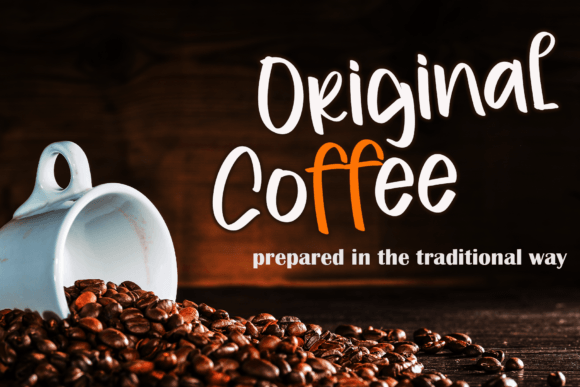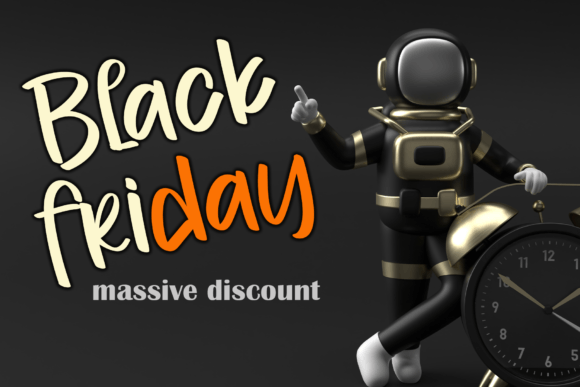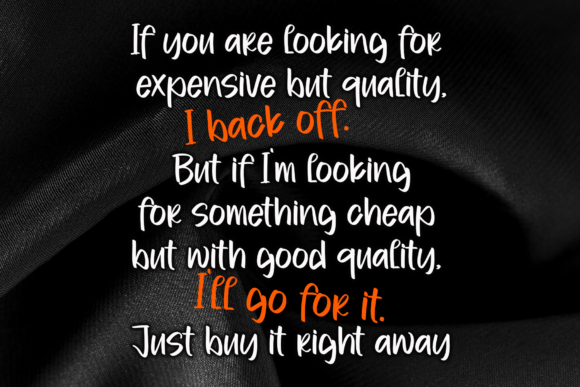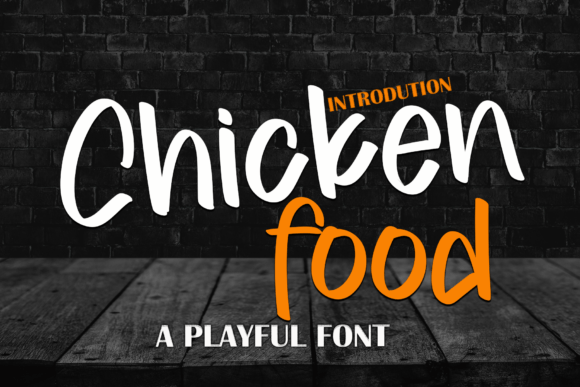
Introduction to Chicken Food Font
Chicken Food is a stylish display font with a contemporary atmosphere and impeccable form, inspired by timeless classic calligraphy.
Balanced and varied, this font was designed to enhance the beauty of your projects .
Key Features of Chicken Food Font